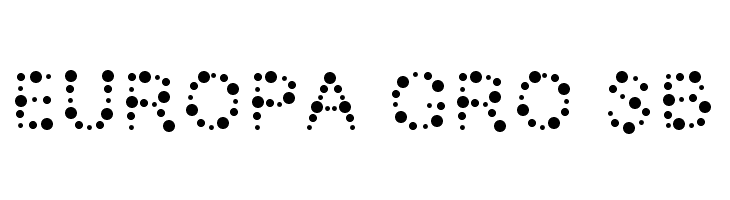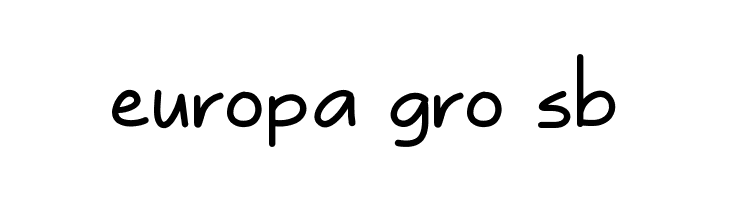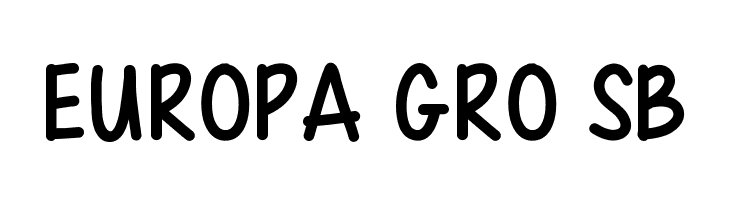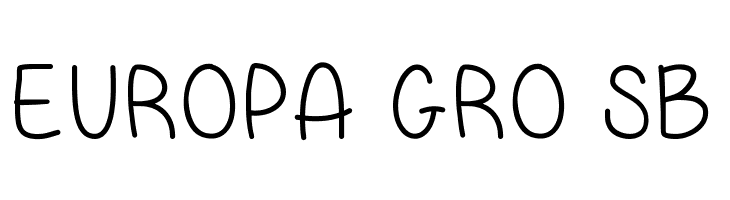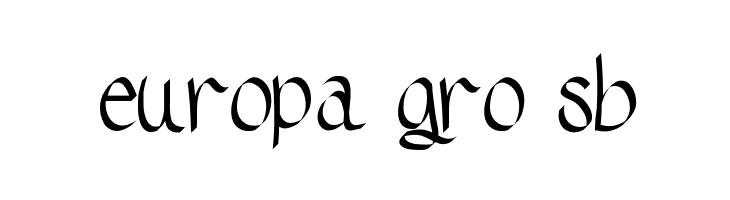
• WhisperADream
A playful, hand-drawn font with tall, narrow letters and a whimsical style.
• Bubble Bath
A playful, dot-based font ideal for fun and informal projects.
• Just Gotta Smile
A playful, handwritten font with smooth, rounded edges and a whimsical style.
• Chunkster Jamz
A playful, bold handwritten font with rounded, consistent strokes.
• JustPlayin
A playful, bold serif font with a whimsical, hand-drawn style.
• Workaholic
A classic serif font with bold, elegant strokes and medium contrast.
• Papa Bear
• RibbonOfhope
A decorative font with flowing, ribbon-like strokes and dynamic elegance.
• Baby Lexi
A playful, hand-drawn font with tall, narrow letters and a whimsical style.
• Baby Lexi Skinny
A playful, slender font with elongated characters and a whimsical style.